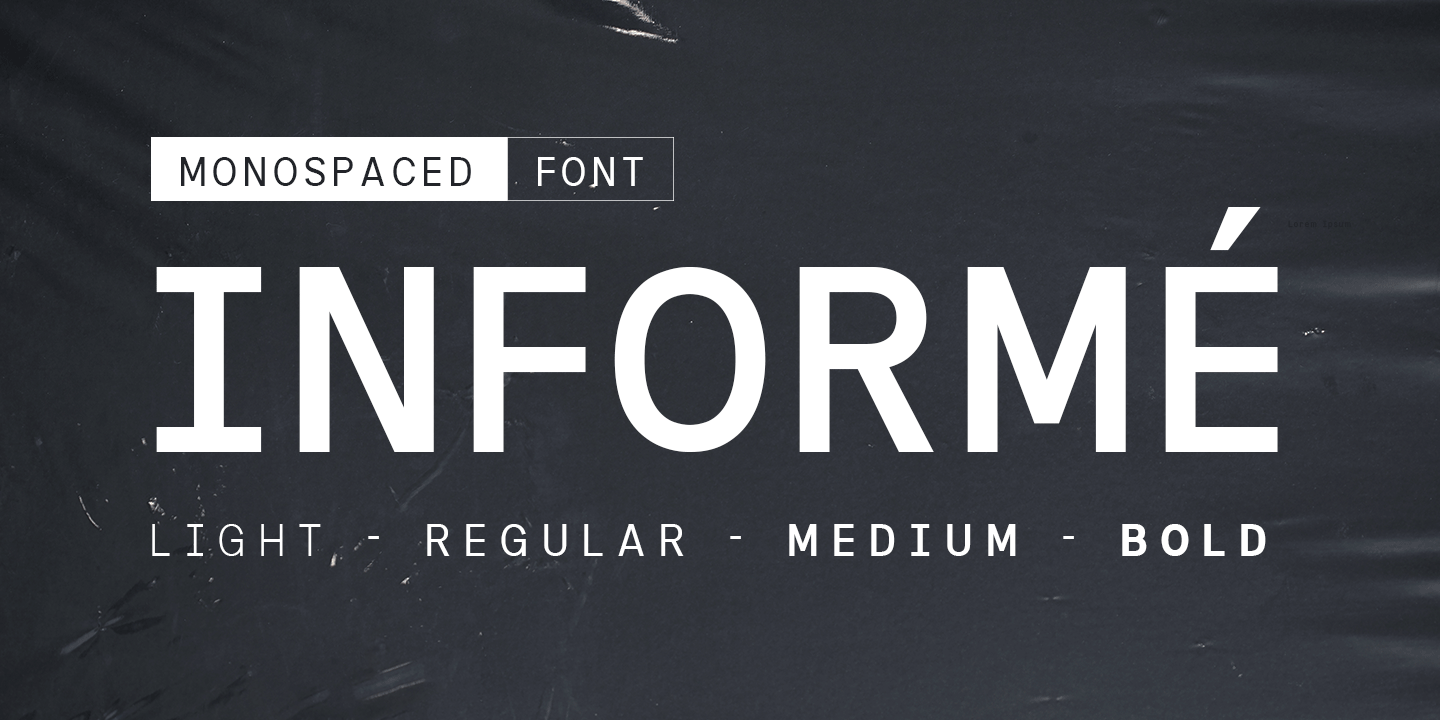
Informe Font excels in professional applications including corporate reports, business presentations, financial documents, legal briefs, academic papers, technical manuals, government publications, consulting proposals, annual reports, and professional correspondence. This sophisticated typeface seamlessly combines readability with authoritative presence, making it an essential tool for designers and professionals working on documents that require both clarity and credibility in formal communication environments.
What makes Informe Font particularly exciting is its perfect balance between professional authority and approachable readability that enhances document comprehension and reader engagement. The font features clean, well-proportioned letterforms with optimized spacing that reduces eye strain during extended reading sessions. Its contemporary design incorporates subtle humanist characteristics that add warmth to formal documents while maintaining the serious tone required for professional communications. The typeface's exceptional legibility across different sizes and media makes it perfect for multi-format document systems. Each character has been meticulously crafted to ensure optimal performance in both digital displays and high-volume printing applications, with special attention to character recognition and reading flow.
The Informe Font family encompasses comprehensive weight variations including Thin, Light, Regular, Medium, Bold, and Black, along with corresponding italic styles for each weight. The family also features condensed versions that maximize space efficiency in dense layouts, plus extended variants for headline applications. Additional specialized cuts may include display weights optimized for large-scale applications and text weights fine-tuned for extended reading comfort, ensuring optimal performance across all professional document requirements.
Business professionals consistently choose Informe Font Free Download for projects demanding both visual sophistication and functional excellence. This remarkable typeface has gained recognition in corporate environments for its ability to enhance document professionalism while maintaining superior readability standards. The font's advanced OpenType features include comprehensive punctuation sets, mathematical symbols, and specialized characters that support complex document formatting requirements.
Whether you're preparing executive presentations, creating technical documentation, designing annual reports, or developing corporate identity systems, Informe Font delivers outstanding results. Its professional aesthetic makes it particularly suitable for law firms, consulting companies, financial institutions, government agencies, and corporations seeking to communicate expertise and reliability through their written communications.
The font's technical specifications ensure flawless performance across all major document formats and platforms. It includes extensive Unicode support for international character sets, making it suitable for global corporations and multilingual documentation requirements. The careful optimization guarantees consistent rendering across different operating systems, printers, and display technologies, maintaining document integrity regardless of viewing or printing conditions.
Professional designers appreciate Informe Font's ability to convey authority and trustworthiness while remaining highly accessible to diverse audiences. Its clean appearance enhances document scanning and comprehension, making it ideal for organizations that need to communicate complex information clearly and professionally. The font's versatile nature helps establish corporate credibility while ensuring that important information reaches audiences effectively across various communication channels and document types.